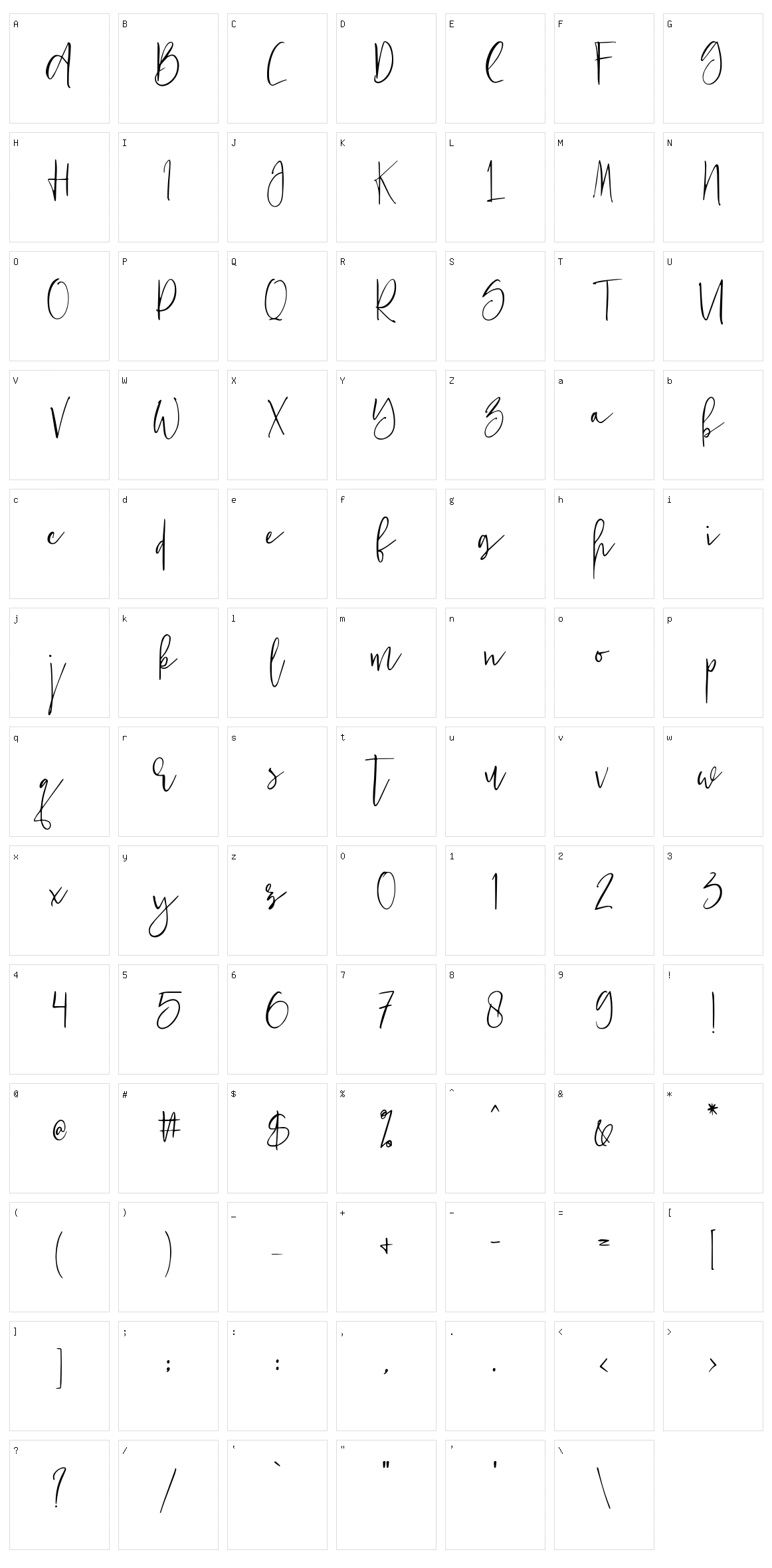
The free font Just Jessy is carefully designed by Garisman Studio, showcasing a thoughtful balance of creativity and usability and falls under the Script font style. When you download the ZIP file, it contains only 26.02 KB of font files, making it lightweight and quick to download. Please review the license details below to understand permitted usage and distribution rights. If license information is not available, we recommend using this font for personal projects only or contacting the author directly for commercial usage permissions.